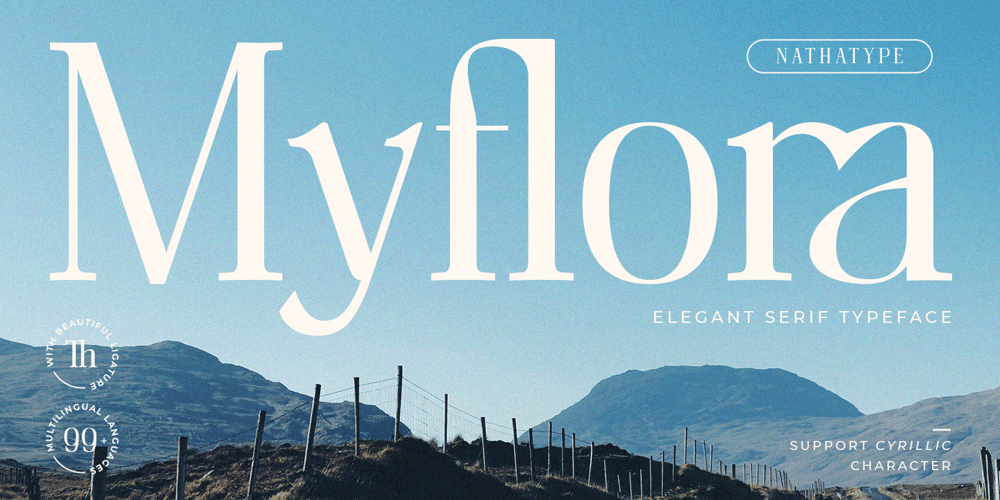
Myflora
Myflora font
Myflora Font Family was designed by Donis Miftahudin and published by Nathatype. Myflora contains 1 styles and family package options. Myflora is a high level serif font in simple styles to create formal, modern, elegant impressions on your designs. Like the other serif font, its main characteristic is the small hooks on the letters’ edges. Besides, its morphological letter forms are simply presented with high contrasts and wide spaces to be legible enough to use in any text sizes. Furthermore, you can enjoy the available features in this font.Features: Ligatures Multilingual Supports PUA Encoded Numerals and Punctuations Myflora fits for various design projects, such as posters, banners, logos, magazine covers, quotes, headings, printed products, invitations, name cards, merchandise, social media, etc. Find out more ways to use this font by taking a look at the font preview.Thanks for purchasing our fonts. Hopefully, you have a great experience using our font. Feel free to contact us for further information when you have a problem using the font. Thank you. Happy designing.